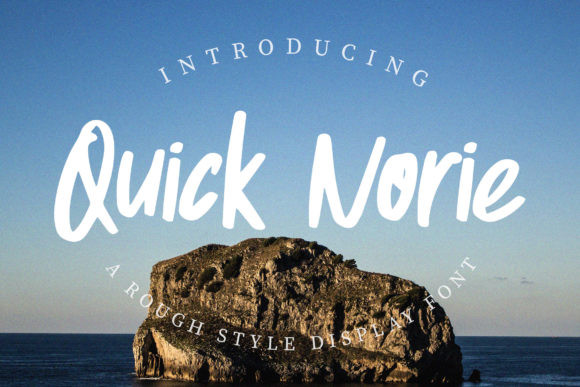
Quick Norie Font
Quick Norie is a fun display font with a unique hand-brush style. It features chunky and extended characters that will look particularly adept when used in logos, branding, packaging design, and much more. This masterfully designed font is a true must-have.